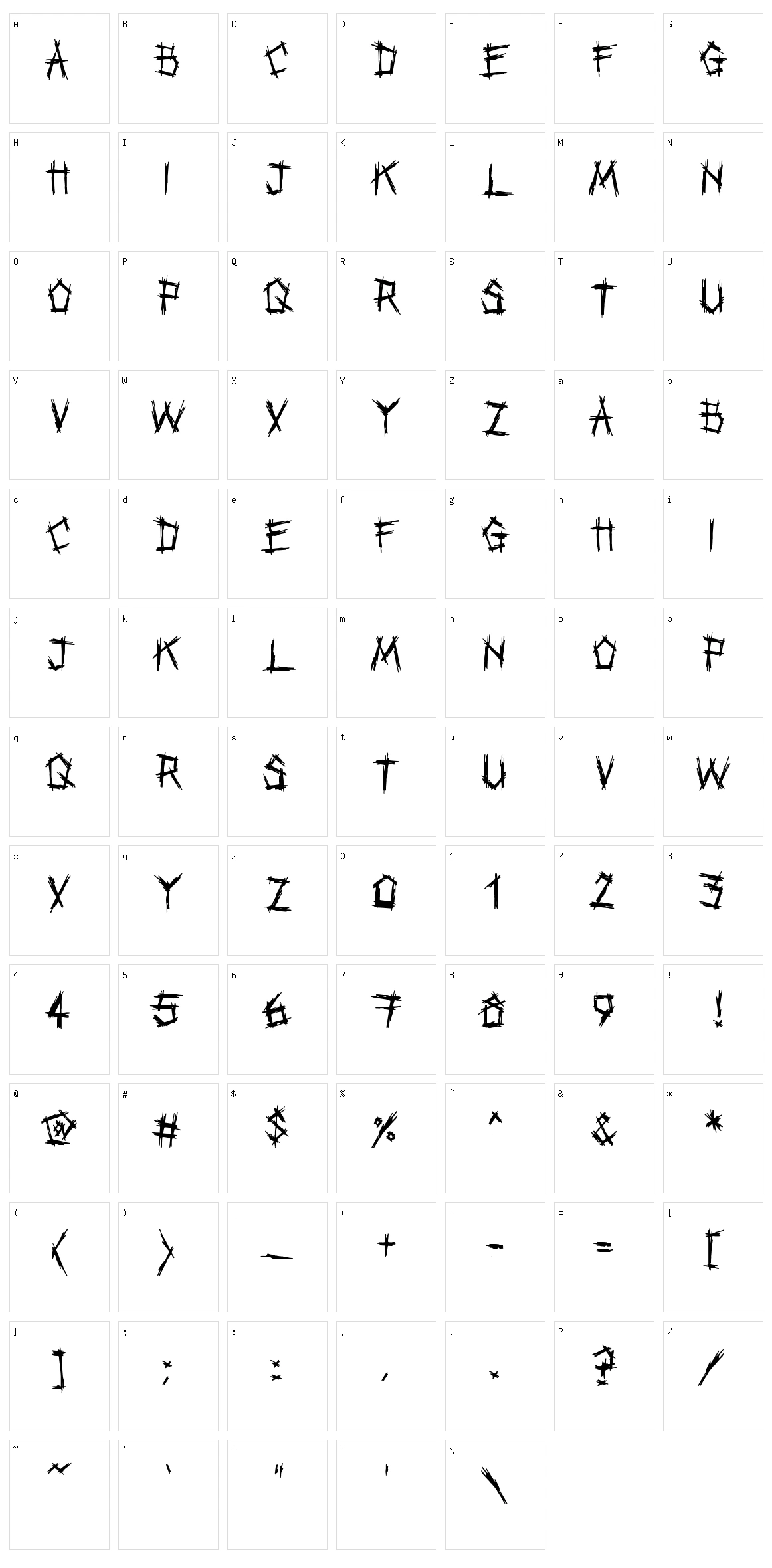
The free font Punkband is carefully designed by Colm Clafferty, showcasing a thoughtful balance of creativity and usability and falls under the Trash font style. When you download the ZIP file, it contains only 34.34 KB of font files, making it lightweight and quick to download. Please review the license details below to understand permitted usage and distribution rights. If license information is not available, we recommend using this font for personal projects only or contacting the author directly for commercial usage permissions.